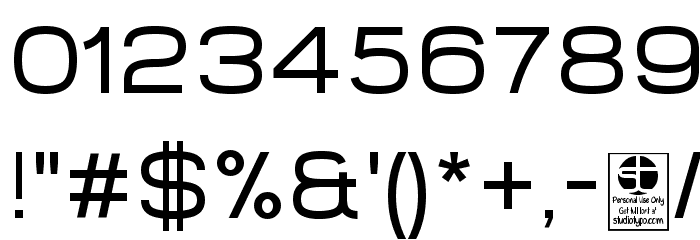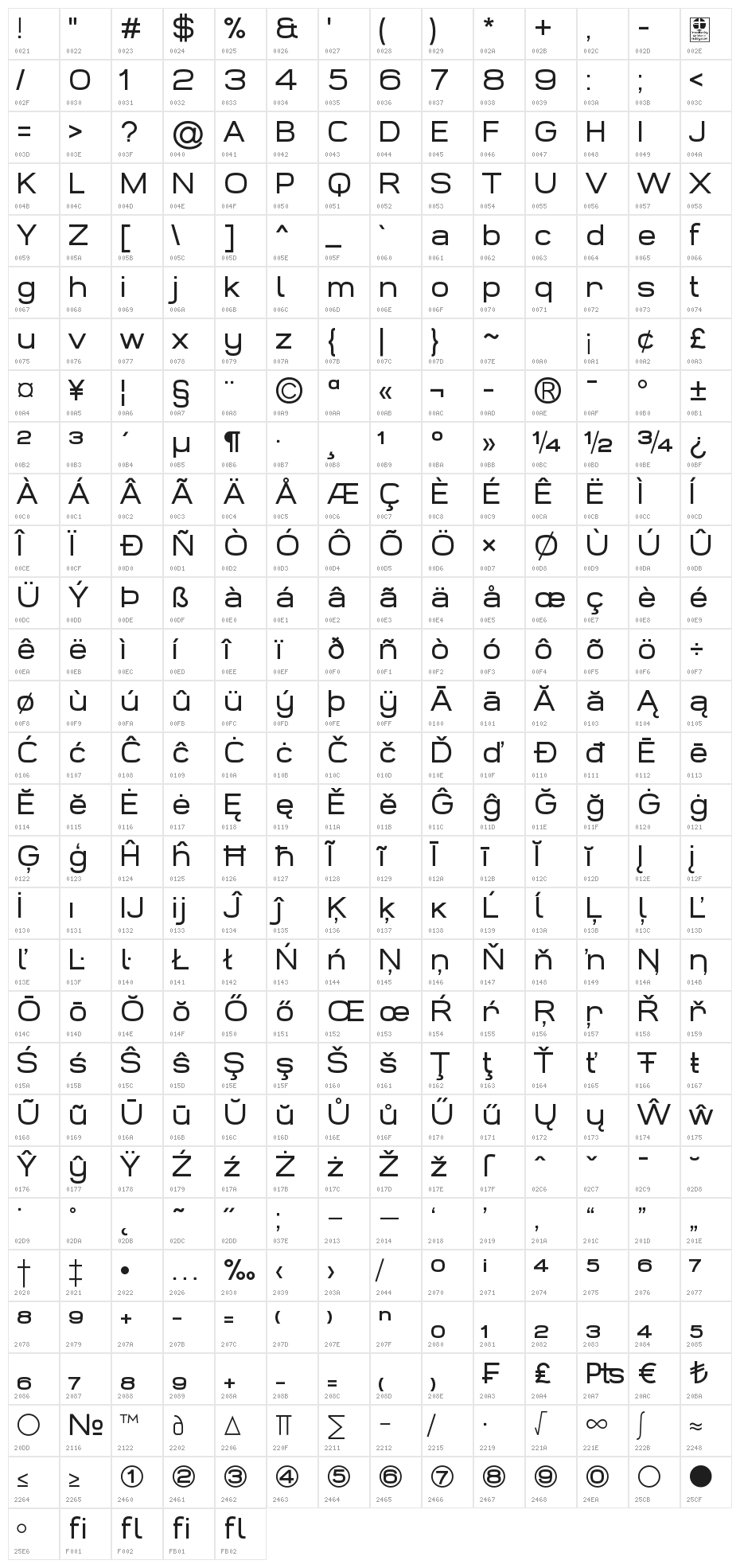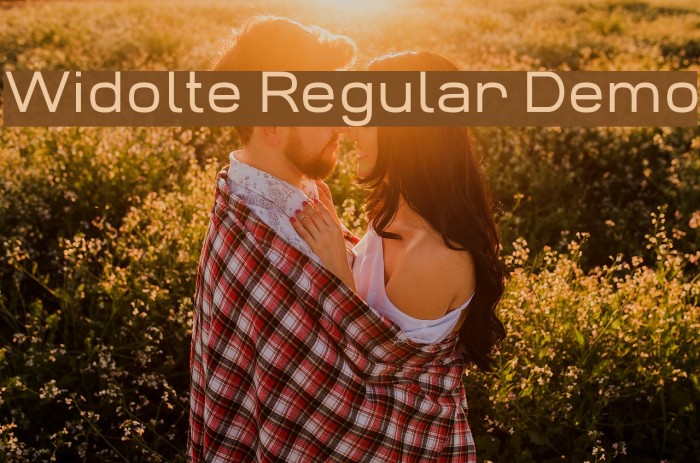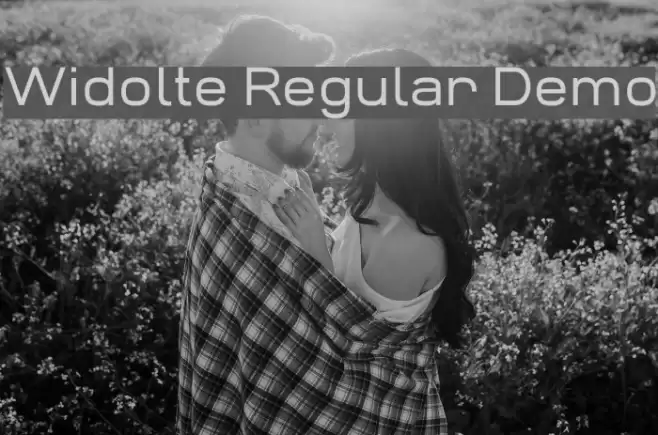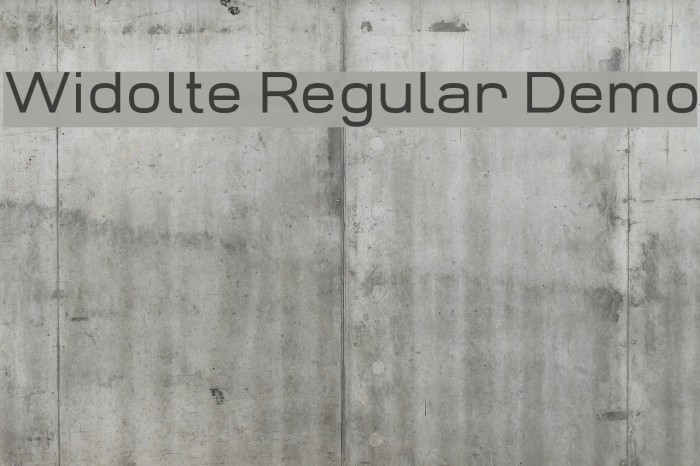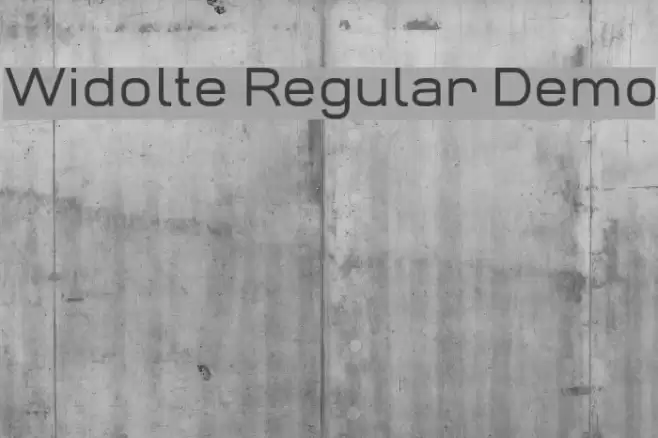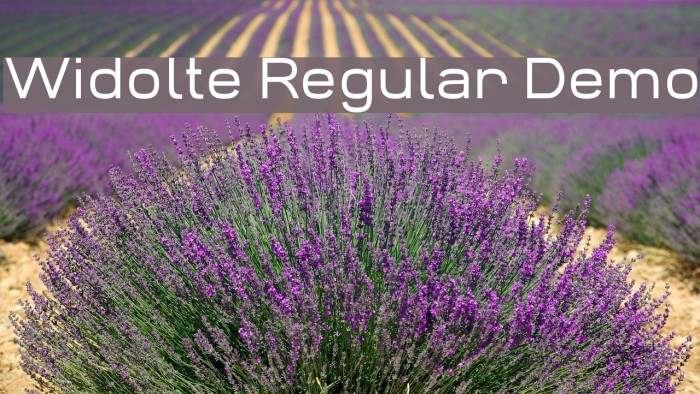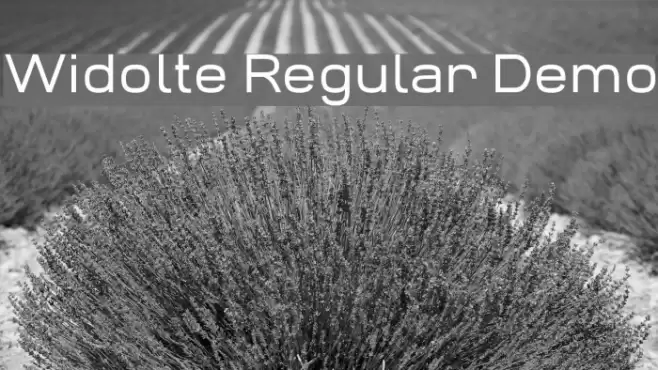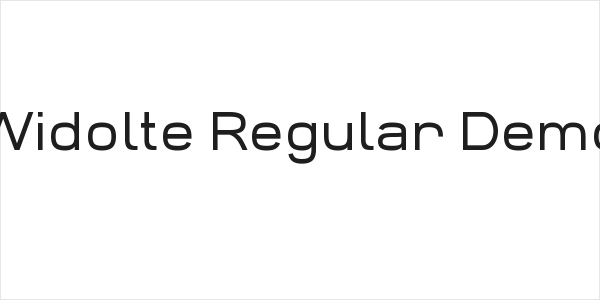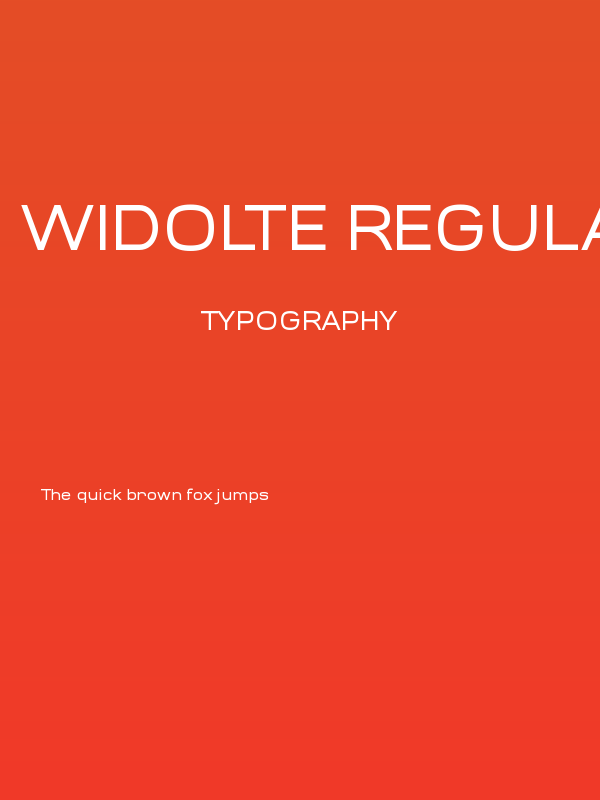
Widolte Regular Demo Font
Widolte Regular Demo Description
This font presents a clean and modern aesthetic with its sans-serif design. The characters are evenly spaced, providing a balanced and harmonious appearance. The uppercase and lowercase letters maintain a consistent style, with smooth curves and straight lines that enhance readability. The numerals are clear and distinct, making them suitable for various applications. Special characters are well-integrated, ensuring versatility in design projects. Overall, this font exudes a contemporary feel, making it ideal for digital and print media.